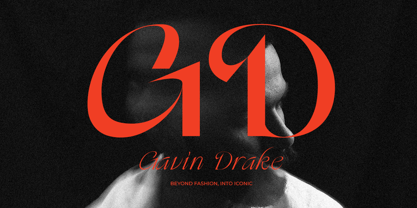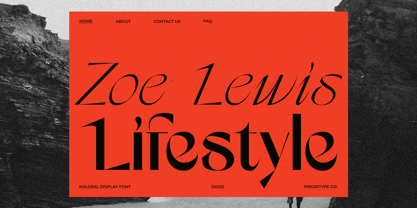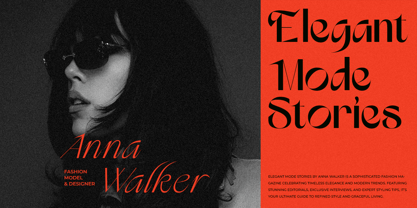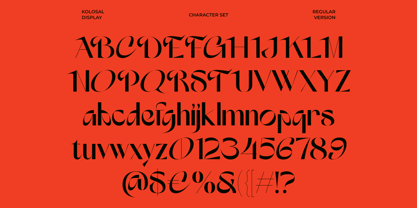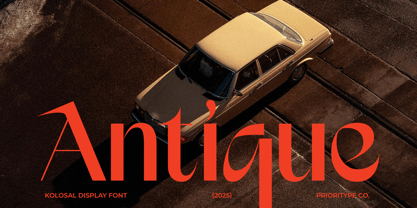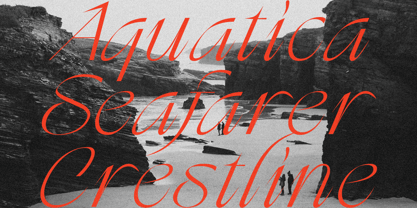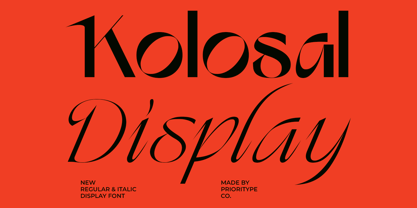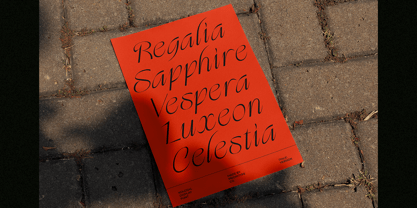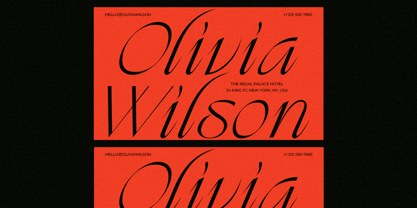
Kolosal Display
La famille de polices Kolosal Display a été conçue par Prio Nurokhim Aji et publiée par Prioritype. Kolosal Display contient 2 styles et options de package familial.
Kolosal Display is a bold and memorable typeface designed to make a statement. This unique font comes in two distinct styles:
Regular: Thick and powerful, perfect for commanding attention.
Italic: Sleek and subtle, ideal for adding a refined touch.
The duality of Kolosal Display allows it to adapt seamlessly to various creative projects, from eye-catching posters to versatile branding designs. With its modern yet timeless appeal, Kolosal Display is guaranteed to leave a lasting impression.
• Features: Uppercase, Lowercase, Numeral, Punctuation & Multilingual.